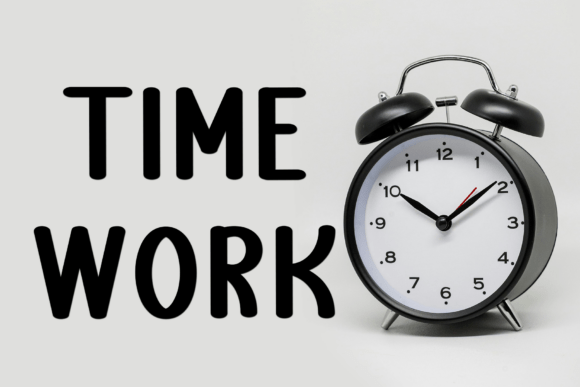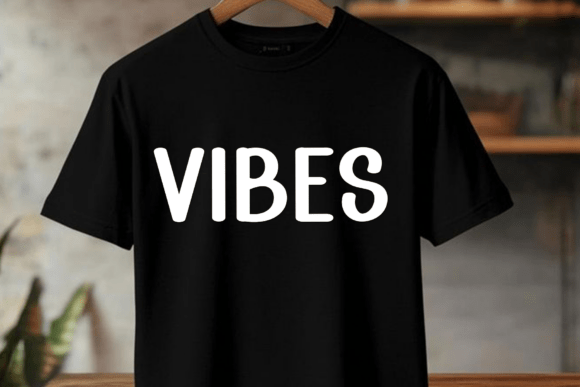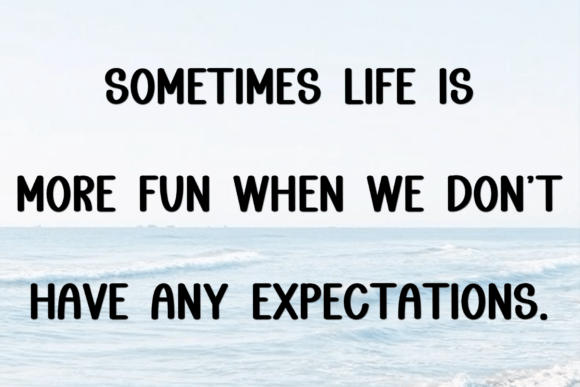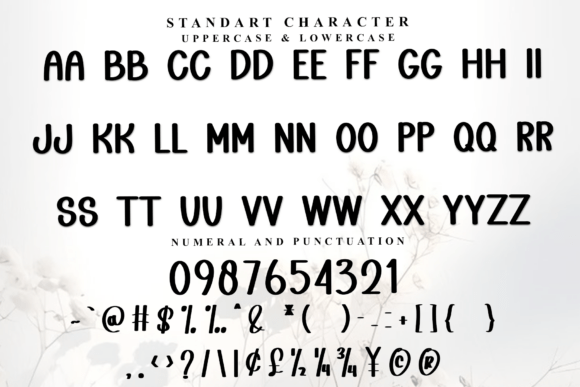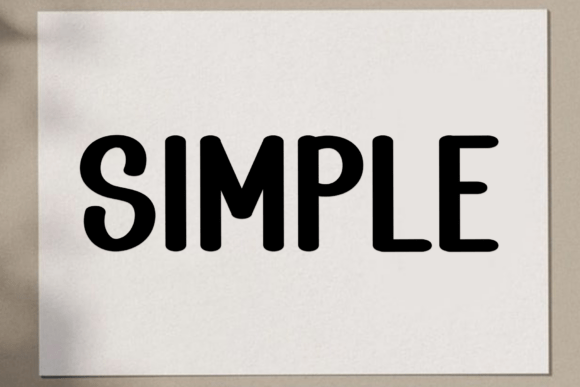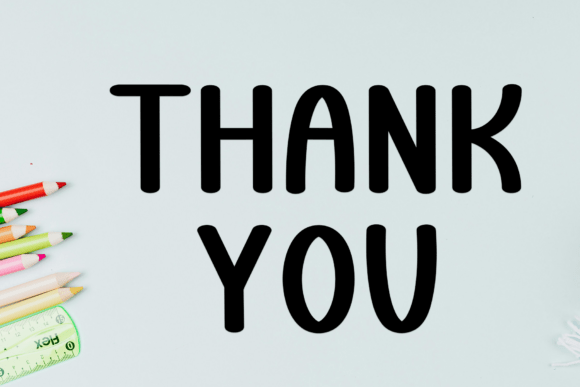
Discover the Magic of Beach Choconut Font
Have you ever stared at the soft, wispy strokes of a beautiful beach sunset, feeling inspired to create something truly unique? That’s exactly the moment when the Beach Choconut Font was born – a font that captures the essence of natural beauty and adds a touch of whimsy to any design project.
Beach Choconut Font is more than just a pretty face; it’s a versatile tool designed to bring your creative ideas to life. With its distinctive strokes and characters, it’s perfect for a wide range of projects, from crafting to graphic design. Whether you’re a seasoned designer or a crafty enthusiast, this natural font style is sure to enhance your work and make it stand out from the crowd.
Beach Choconut Font Key Features
- Font Family: Beach Choconut, a unique and playful font designed for casual and creative applications.
- Character Set: Includes a wide range of characters, including uppercase and lowercase letters, numbers, and punctuation marks.
- Unique Characteristics: The Beach Choconut font features a distinctive, hand-drawn feel with subtle irregularities, giving it a unique and charming personality.
Beach Choconut Font Review
Overall, I’d say the Beach Choconut Font is a visually appealing choice for any beach-themed project. It has a unique, hand-drawn feel that adds a touch of whimsy and personality to your design.
- Its quirky, casual vibe is perfect for beach-inspired designs, from surfboards to tropical getaways.
- The font’s irregularities and imperfections give it a human touch, making it feel more approachable and relatable.
- It’s great for adding a pop of color and visual interest to your design, especially when paired with bold, bright colors.
- Unfortunately, the Beach Choconut Font may not be the best choice for projects that require a more formal or professional tone.
- Its irregularities can sometimes make it difficult to read, especially in smaller font sizes or when used for large blocks of text.
- It’s not ideal for projects that require precise typography or intricate details.
Overall, I think the Beach Choconut Font is a great choice for designers looking to add a playful, beachy vibe to their projects. While it may not be suitable for every project, it’s definitely worth considering for the right design.
The Beach Choconut Font is perfect for creating beach-themed designs, such as invitation templates, social media graphics, and advertisements. It’s also great for adding a playful touch to food labels, packaging, and menus.
To get the most out of the Beach Choconut Font, experiment with different font sizes, colors, and combinations. You can also pair it with other beach-themed fonts and graphics to create a cohesive look.